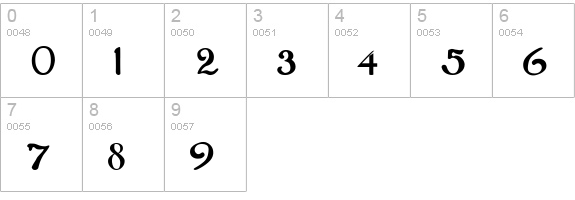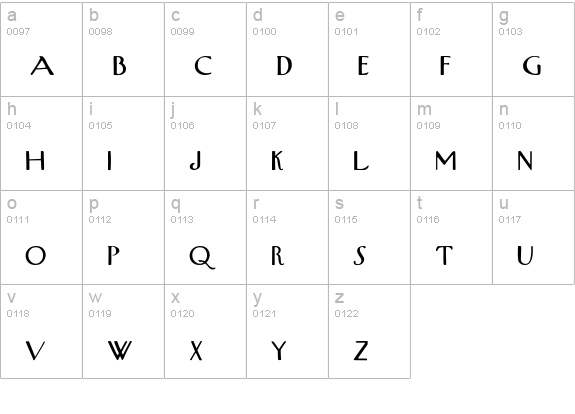
RSUpperWestSide Font Details
RSUpperWestSide font is a stylish and modern typeface that exudes elegance and sophistication. With its sleek lines and distinctive curves, this font is perfect for adding a touch of luxury to your design projects. Whether you're creating a logo, branding materials, or any other creative work, RSUpperWestSide font is sure to make a statement. What's even better is that RSUpperWestSide font is available for free download at FontsMarket.com. You can easily access this beautiful font and incorporate it into your designs without any cost. So why wait? Give your projects a touch of class with RSUpperWestSide font today!